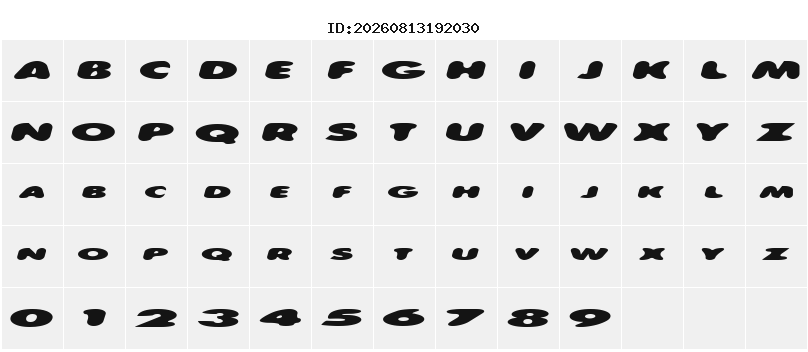
• Font Name: speedway
About speedway.ttf
speedway.ttf is a modern, elegant sans-serif font designed for ultimate readability and visual harmony. Perfect for branding, headlines, web design, and print materials.